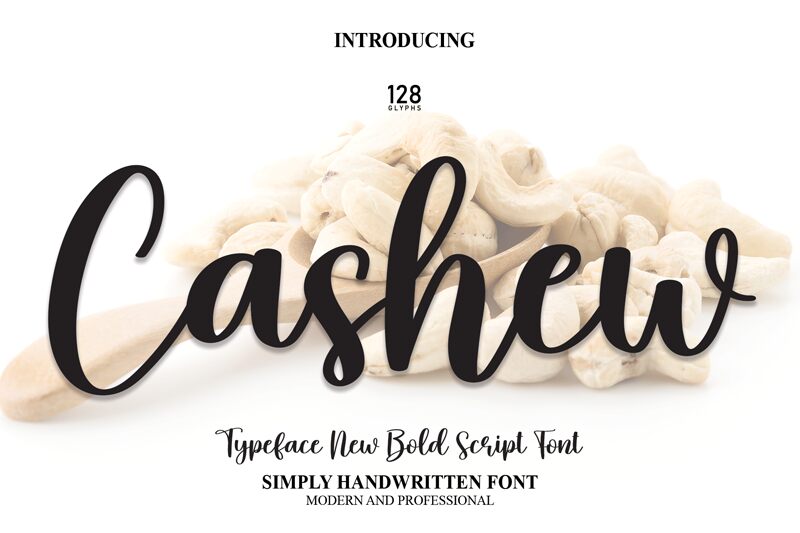
Cashew
Cashew, a mesmerizing calligraphy font designed by Scratchones, exudes elegance and grace. With its fluid strokes and intricate details, it adds a touch of sophistication to any project.
Perfect for wedding invitations, luxurious branding materials, and high-end fashion magazines, Cashew brings a sense of refinement to every design. Its versatility shines through in greeting cards, elegant logos, and exquisite packaging. The bold yet delicate nature of this font captivates the eye and leaves a lasting impression.
Elevate your creations with Cashew's timeless beauty and create an unforgettable visual experience.
The latest style letters are perfect for wall displays, wedding invitations, social media post logos, advertisements, product packaging, product designs, labels, photography, watermarks, invitations, stationery, and any project that requires taste handwriting.